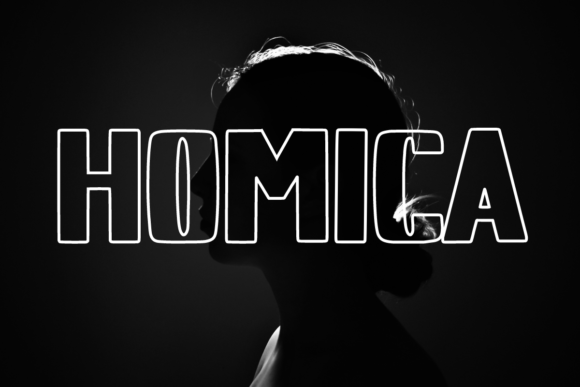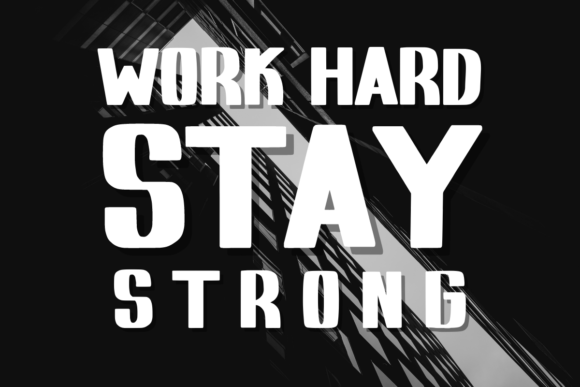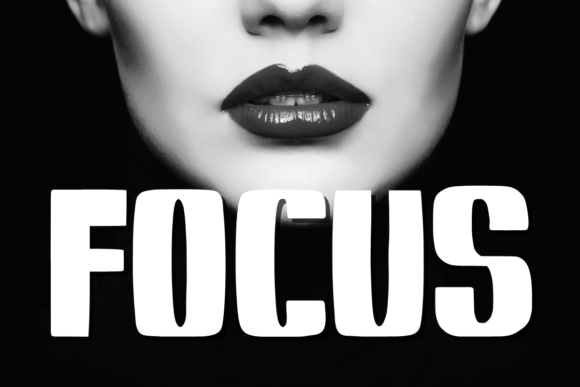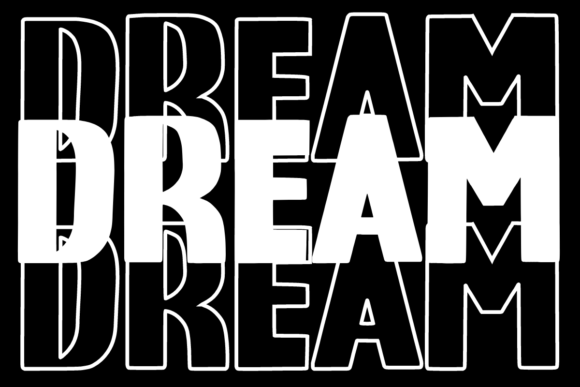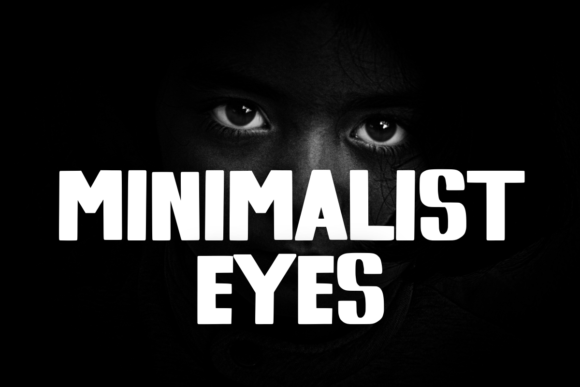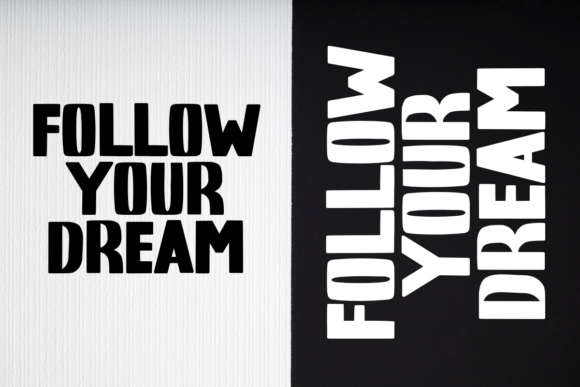
Introduction to Homica Font
You know that feeling when you’re working on a creative project and you just can’t seem to find the perfect font to bring it all together? You scroll through design resources, searching for something that will give your design the edge it needs. Well, we’re here to tell you that your search is over. Say hello to the stunning Homica Font, a bold display font that’s sure to take your designs to the next level.
With its unique and beautiful style, the Homica Font is the perfect addition to any design project. Whether you’re working on a logo, a website, or a social media campaign, this font is sure to add a touch of sophistication and elegance to your work. And the best part? It’s completely free to download, making it an invaluable resource for designers of all levels.
Key Features of Homica Font
- Unique characteristics: Homica Font features a unique, modern design with a minimalist aesthetic, making it perfect for creative projects that require a clean and sophisticated look.
Honest Review: Homica Font
I recently had the chance to work with the Homica Font for a creative project, and I must say it was a delightful experience. The font is available for free download, which is always a great starting point for any design resource. The transparent background allows for seamless integration into any design, making it a versatile choice for designers.
What works well with Homica Font is its high quality and modern aesthetic. It’s perfect for creating visually appealing designs, from headers to body text. The font also has a wide range of styles and weights, making it suitable for various creative projects.
- ✨ Clean and modern design
- ✨ Wide range of styles and weights
- ✨ Transparent background for seamless integration
However, I did notice a few limitations. The font may not be suitable for older systems or browsers, as it’s a relatively new font. Additionally, some users may find the font too modern or trendy, which may not fit their personal design style.
Overall, I’m quite impressed with the Homica Font. Its high quality, modern design, and wide range of styles make it a valuable addition to any designer’s toolkit. I would definitely recommend it for any creative project, and I’m excited to see how it evolves in the future.
Tips for Getting the Most Out of Homica Font
To get the most out of Homica Font, experiment with different font sizes, styles, and combinations. You can also use Homica Font with other design elements, such as graphics or images, to create a unique and creative design.
Homica Font is commonly used for creative projects, such as logos, graphics, illustrations, presentations, and documents. Its high-quality design and transparent background make it an ideal choice for designers who want to create professional-looking designs without any distractions.